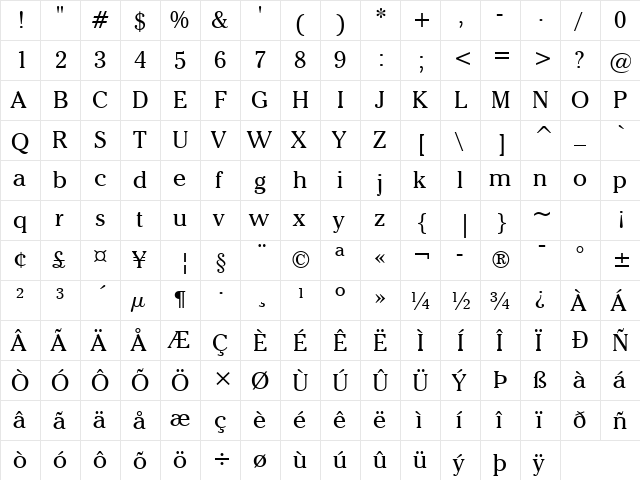
ChelthmITC Bk BT Book Font Preview
ChelthmITC Bk BT Book
Design Context for ChelthmITC Bk BT Typeface
ChelthmITC Bk BT is a composed and adaptable typeface that performs quietly and consistently across a wide range of design contexts.